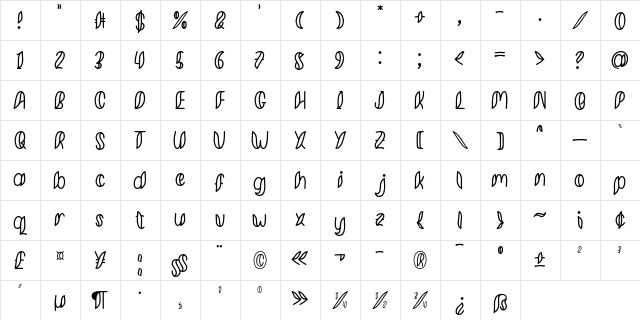
Minkem Outline Regular
Design Context for Minkem Outline Typeface
Minkem Outline is built around its visual character rather than neutral utility — its distinctive forms are designed to make an impression at display sizes.
Font Pairing: Pair with a clean neutral sans-serif for body copy to let Minkem Outline's character lead without overwhelming the composition.
Pro Tip: Use Minkem Outline exclusively at display sizes — it was designed to be seen, not read at length. Let a neutral companion handle body copy.